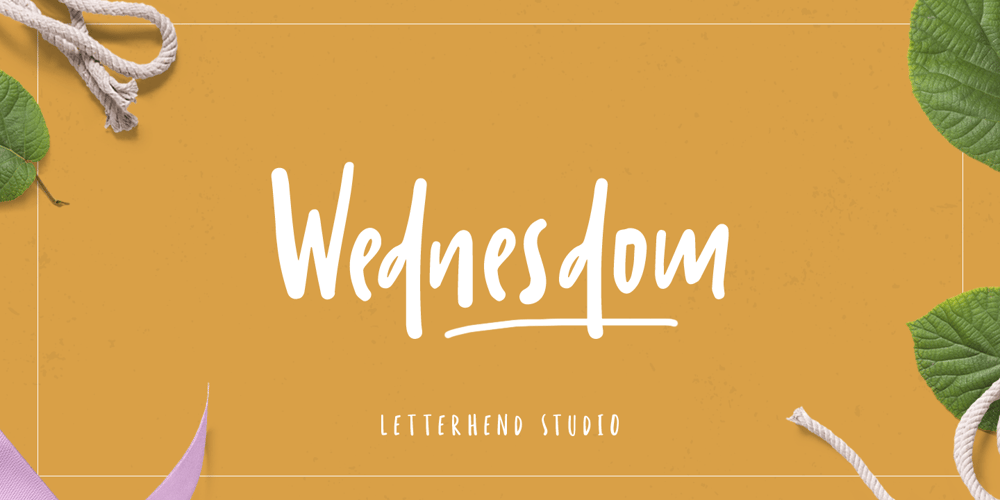
Wednesdom
Wednesdom font
Wednesdom Font Family was designed by Hendry Juanda and published by Letterhend. Wednesdom contains 1 styles and family package options. Wednesdom is a playful font that you can use for many things, including cute quotes, branding and more.